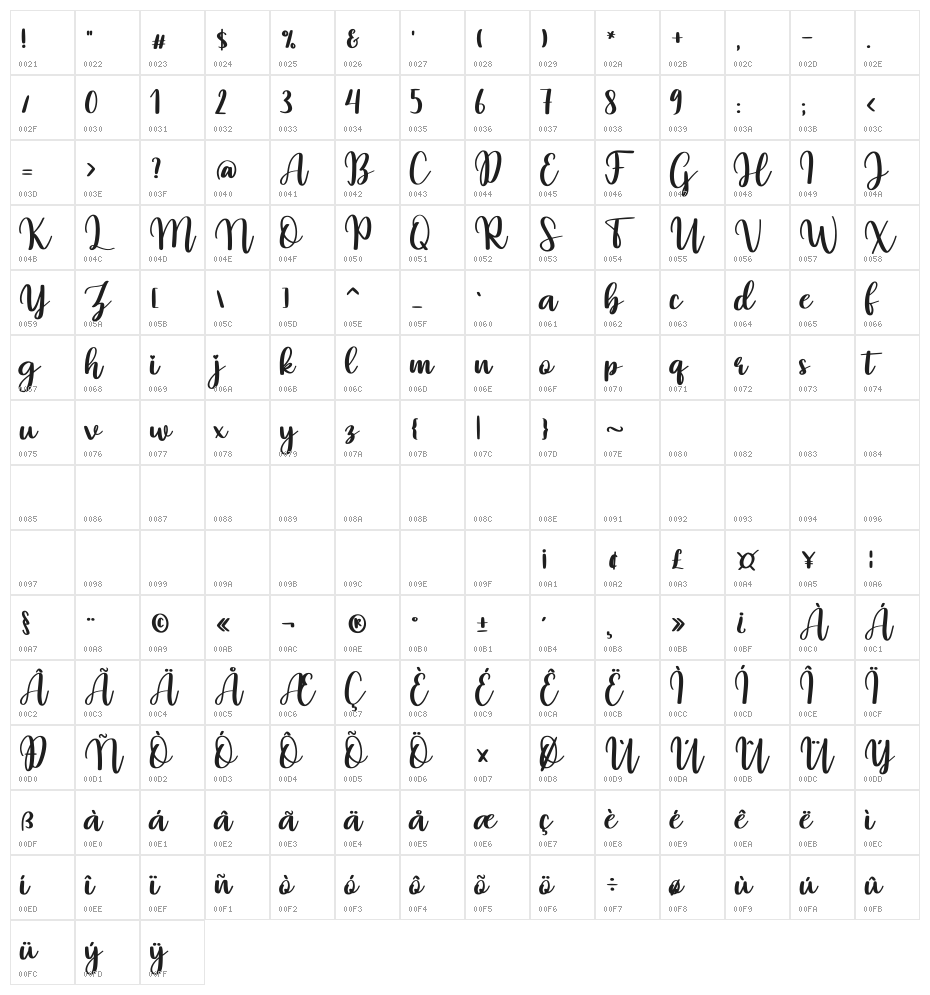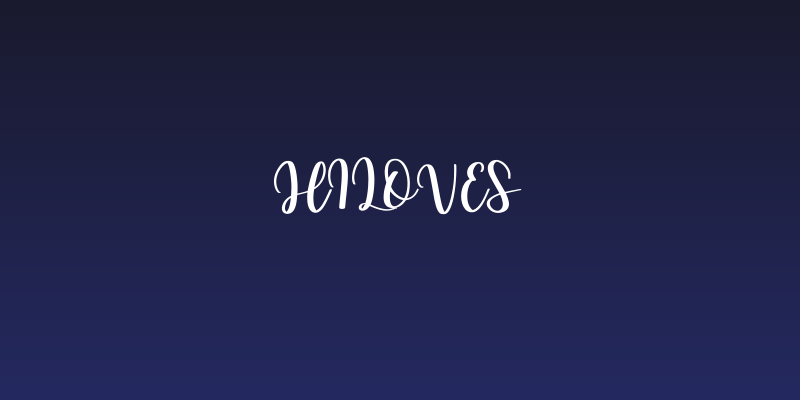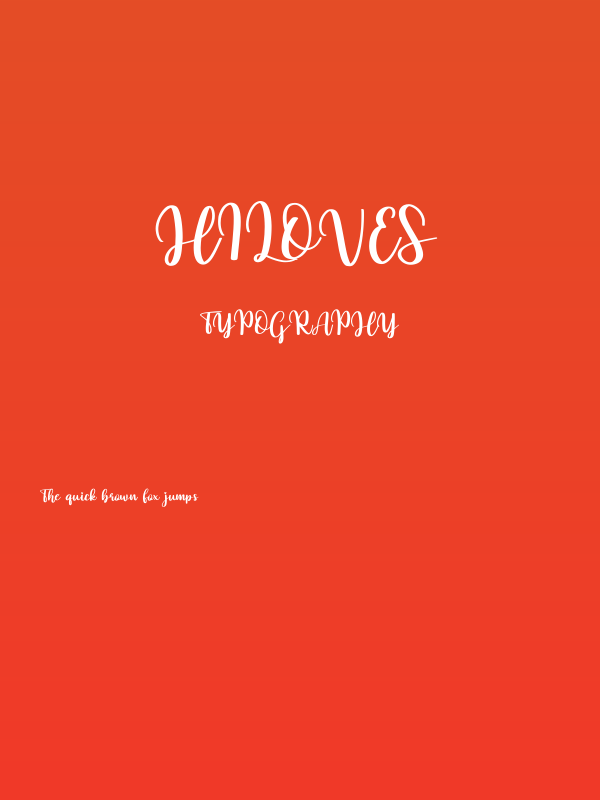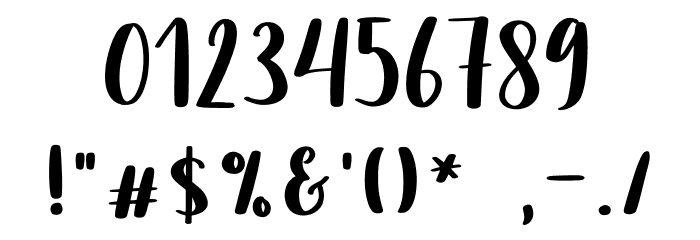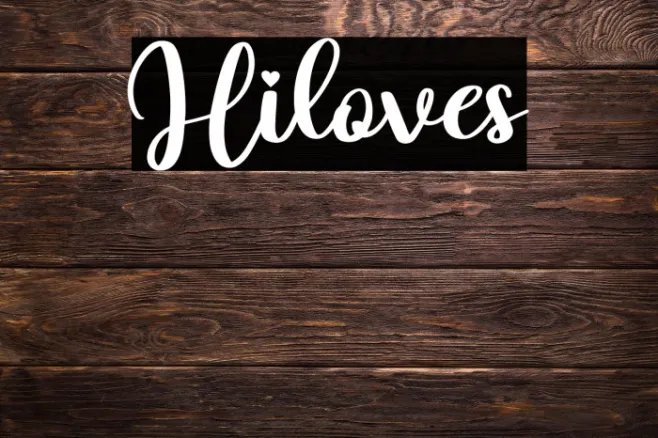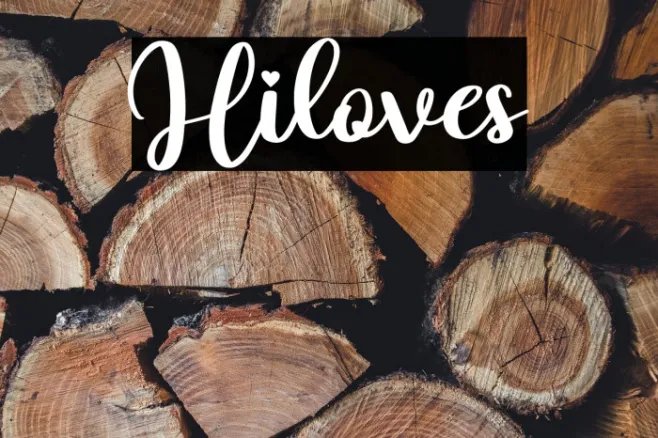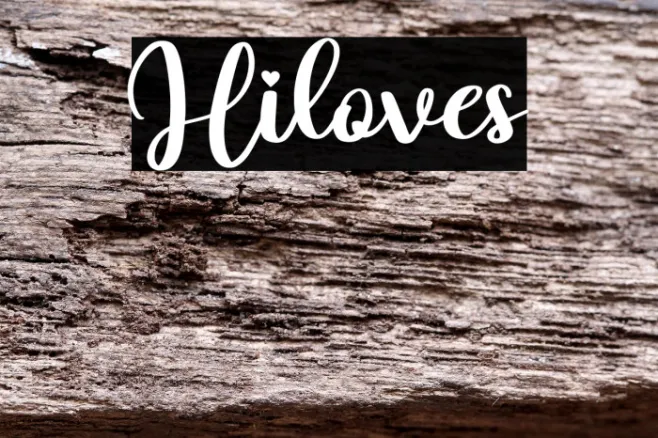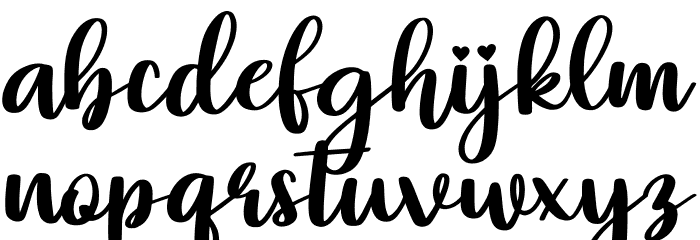
Hiloves Font
Hiloves Description
This font features a playful and elegant script style with a handwritten feel. The uppercase letters are characterized by flowing, cursive strokes that give a sense of movement and fluidity. The lowercase letters maintain a consistent style, with some characters featuring unique embellishments, such as the heart-shaped dots on the 'i' and 'j'. The numerals are bold and slightly rounded, complementing the overall aesthetic. Special characters are designed to match the whimsical and artistic nature of the font, making it suitable for creative and expressive projects.
| Proposed Projects | Ideal for wedding invitations, greeting cards, branding, and social media graphics. |